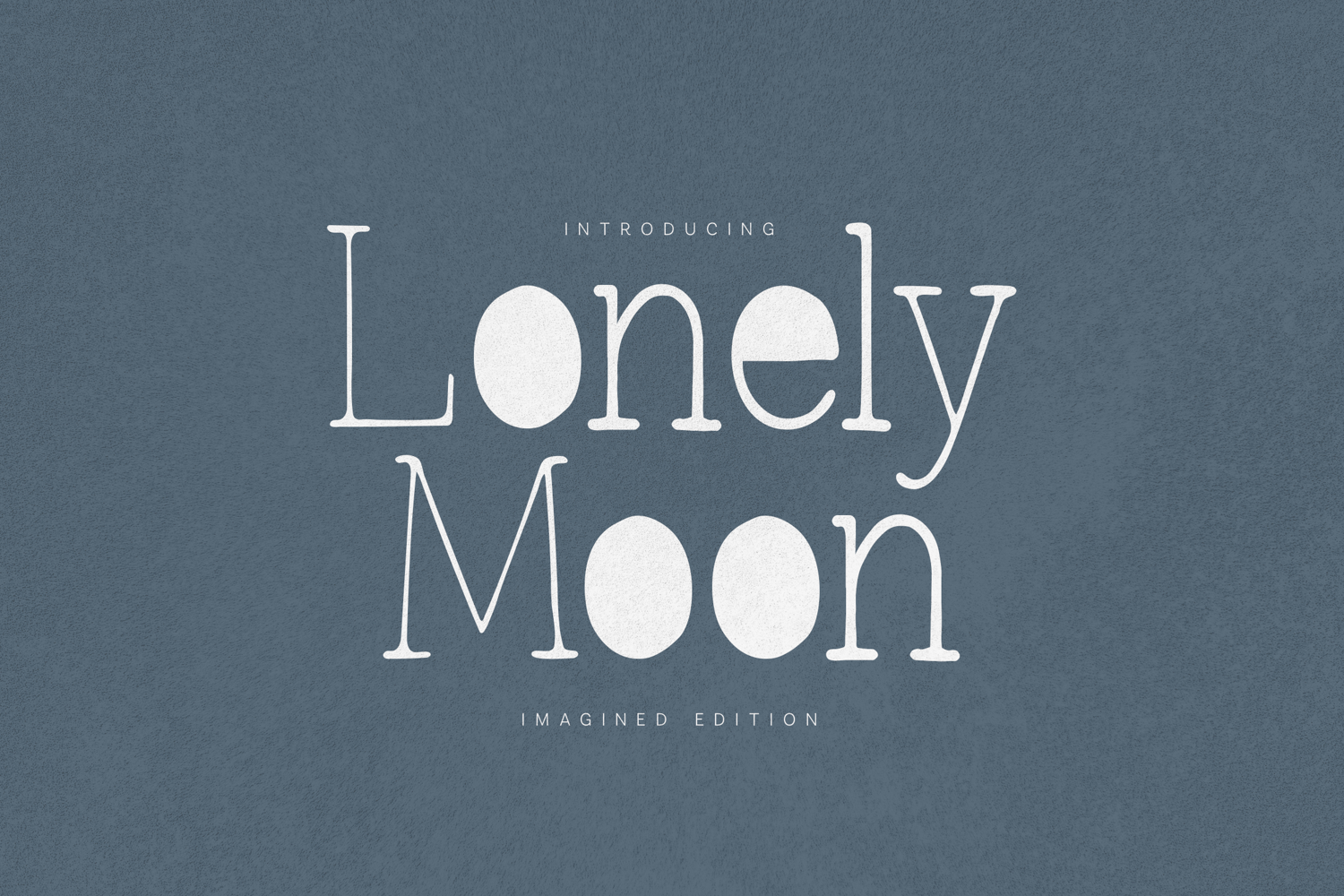
Lonely Moon Whimsical Display Serif
Meet Lonely Moon, a distinctive display serif typeface inspired by quiet evenings, poetic storytelling, handcrafted design, and the beauty of imperfect forms. Combining delicate serif structures with playful geometric details, Lonely Moon creates typography that feels artistic, expressive, and wonderfully unconventional.
Designed to stand apart from traditional serif fonts, Lonely Moon introduces charming oval-shaped counters and unique character details that bring personality and emotion to every word. The result is a typeface that feels both nostalgic and contemporary—perfect for brands and creatives seeking something memorable, elegant, and delightfully different.
Whether used for children's books, boutique branding, editorial headlines, artisan packaging, creative posters, stationery, or lifestyle products, Lonely Moon transforms ordinary text into visual storytelling. Its carefully balanced proportions provide excellent readability while maintaining a strong decorative presence that captures attention instantly.
Supporting a wide range of international languages and accented characters, Lonely Moon is crafted for designers around the world who value originality, warmth, and creative expression.
Features- Unique display serif typeface
- Distinctive oval-shaped character details
- Playful and artistic letterforms
- Uppercase & lowercase characters
- Numerals and punctuation
- Extensive multilingual support
- International accented characters
- Carefully refined spacing
- High-quality kerning
- Perfect for headlines and branding
- Children's Book Covers
- Storytelling Brands
- Boutique Packaging
- Editorial Design
- Creative Posters
- Art Prints
- Lifestyle Branding
- Greeting Cards
- Invitations
- Café & Bakery Branding
- Handmade Products
- Creative Agencies
- Bookstores
- Educational Materials
- Nursery & Kids Brands
- Social Media Graphics
- Magazine Headlines
- Product Labels
Lonely Moon was created for designers who believe typography should spark curiosity and emotion. Its playful details, elegant structure, and handcrafted personality make it ideal for projects that need to feel imaginative, artistic, and genuinely unique.
From whimsical branding to sophisticated editorial layouts, Lonely Moon brings character, charm, and creativity to every composition.
Let your words shine with the quiet beauty of Lonely Moon.